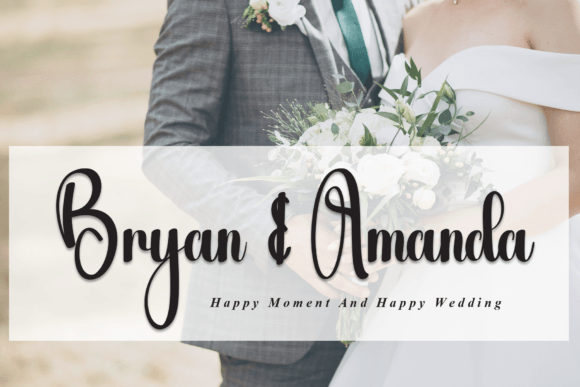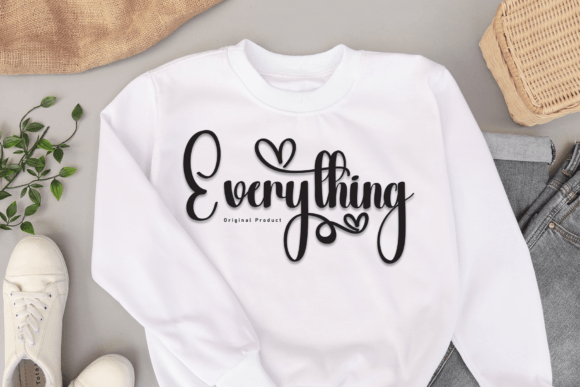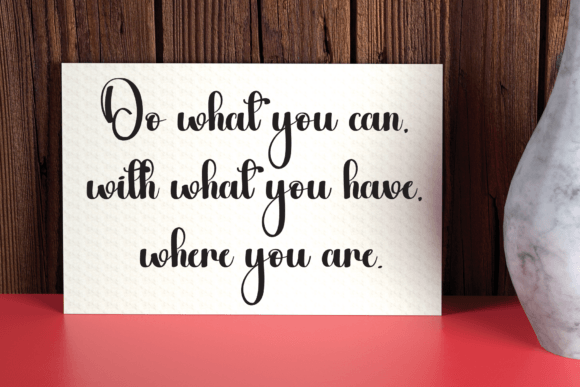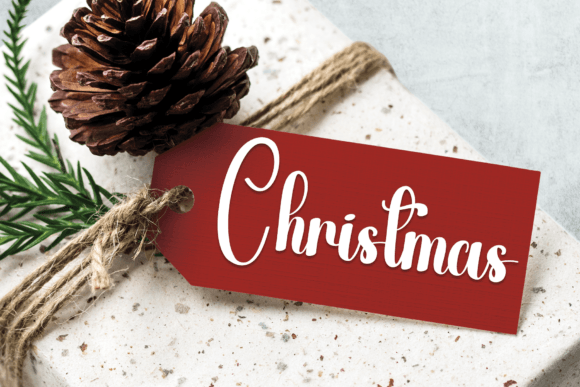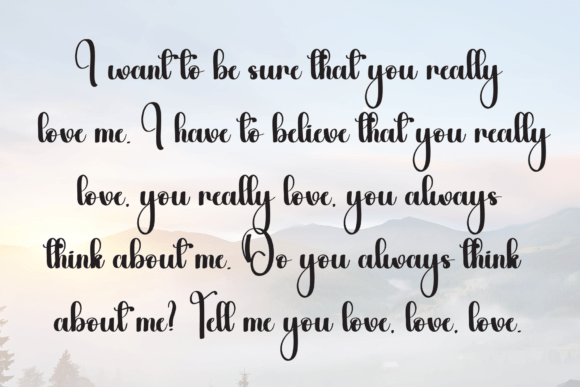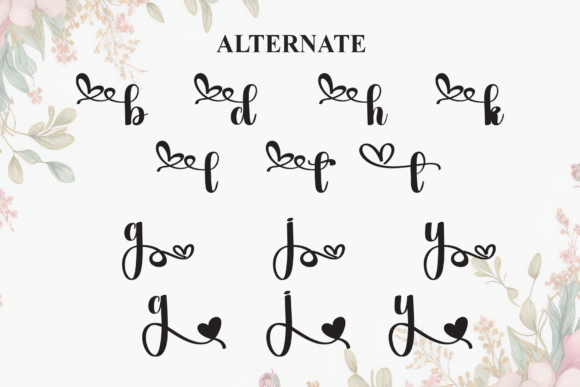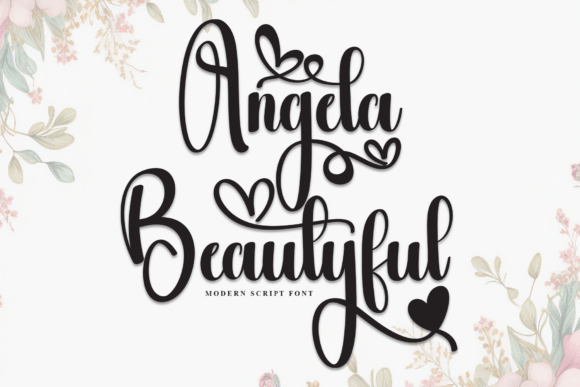
Discover the Charming Angela Beautyful Font: Add a Touch of Whimsy to Your Designs
Are you tired of using the same old fonts in your designs? Do you want to add a touch of personality and whimsy to your creations? Look no further than the Angela Beautyful Font, a handwritten display font that exudes warmth, charm, and an irresistible sweetness. In this article, we’ll dive into the features and benefits of this delightful font and explore how it can elevate your designs.
The Perfect Blend of Cuteness and Amusement
The Angela Beautyful Font is a captivating blend of cuteness and amusement, making it the perfect typographic tool for adding a touch of fun to your creations. Its handwritten display style is imbued with a sense of playfulness and friendliness, making it ideal for designs that require a personal touch. Whether you’re crafting elegant wedding invitations, bespoke cards, or any design that craves a sprinkle of whimsicality, this font is sure to make it distinctively delightful.
Key Features of the Angela Beautyful Font
- Handwritten Display Style: The Angela Beautyful Font boasts a beautiful, handwritten display style that adds a touch of warmth and personality to your designs.
- Cuteness and Amusement: This font is a perfect blend of cuteness and amusement, making it ideal for designs that require a playful and friendly touch.
- Whimsical and Elegant: The Angela Beautyful Font is both whimsical and elegant, making it perfect for a wide range of design applications, from wedding invitations to bespoke cards.
- Easy to Read: Despite its playful style, the Angela Beautyful Font is easy to read, making it perfect for designs that require a clear and concise message.
Design Applications for the Angela Beautyful Font
The Angela Beautyful Font is a versatile typographic tool that can be used in a wide range of design applications. Here are a few ideas to get you started:
- Wedding Invitations: Add a touch of elegance and whimsy to your wedding invitations with the Angela Beautyful Font.
- Bespoke Cards: Create personalized cards for special occasions, such as birthdays, anniversaries, and holidays, with this delightful font.
- Social Media Graphics: Add a playful touch to your social media graphics, such as Instagram posts and Facebook updates, with the Angela Beautyful Font.
- Branding and Packaging: Use this font to create a unique and memorable brand identity for your business or product.
Tips for Using the Angela Beautyful Font
Here are a few tips for using the Angela Beautyful Font in your designs:
- Pair with Other Fonts: Pair the Angela Beautyful Font with other fonts to create a unique and visually appealing typography.
- Keep it Simple: Don’t be afraid to keep your design simple and clean, allowing the font to take center stage.
The Angela Beautyful Font is a delightful and versatile typographic tool that can add a touch of whimsy and personality to your designs. With its handwritten display style, captivating blend of cuteness and amusement, and ease of use, this font is perfect for designers and crafters looking to create unique and memorable designs. Whether you’re crafting elegant wedding invitations, bespoke cards, or any design that craves a sprinkle of whimsicality, the Angela Beautyful Font is sure to make it distinctively delightful.